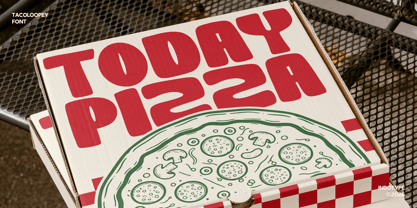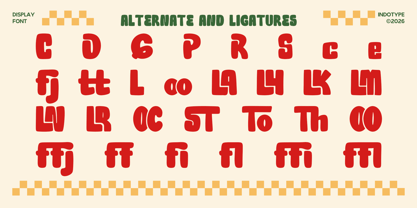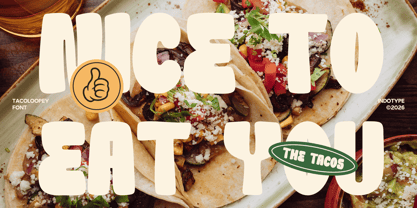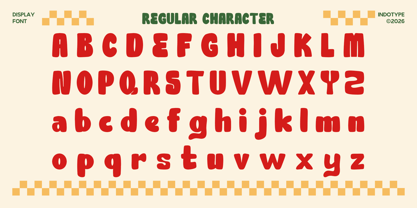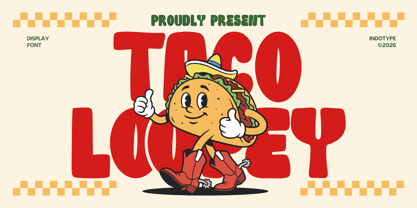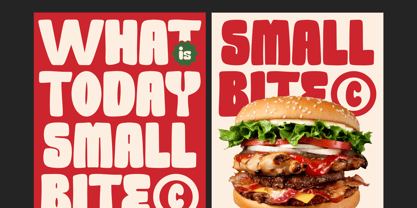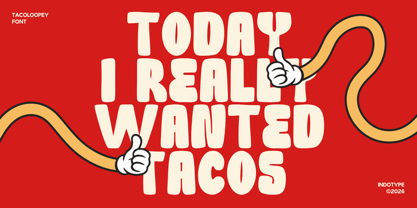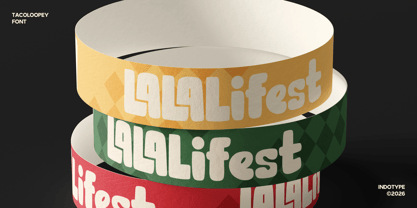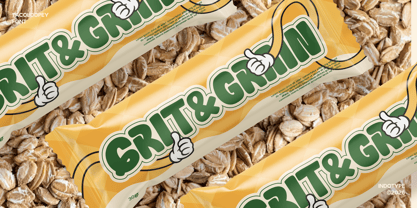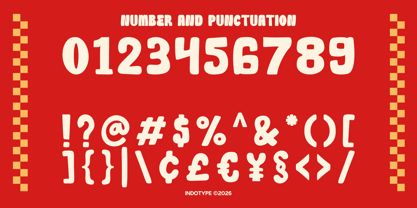
IT Tacoloopey
by Indotype
The IT Tacoloopey Font Family was designed by Frederik Aristaputra and published by Indotype. IT Tacoloopey contains 2 styles and family package options. More about this family
Tacoloopey is a joyfully eccentric display font that blends childlike whimsy with good fortune. Characterized by its bouncy baseline, irregular letter proportions, and charmingly imperfect shapes, this font feels like it was drawn with a smile. Its playful energy is infused with a subtle "lucky" charm—think four-leaf clovers and cheerful serendipity—making it perfect for projects that are fun, optimistic, and a little bit magical. This font is designed to spark happiness and creativity. Tacoloopey is ideal for children's brands, playful product packaging, event announcements for parties and festivals, social media graphics that stand out, and any design project that isn't afraid to be boldly cheerful and approachably quirky. It’s more than a font; it’s a dose of happy typography. • Ideal for: Children's Books & Brands, Party & Festival Graphics, Playful Product Packaging, Social Media & Blog Headers, Lucky-Themed Projects, Quirky Logotypes. • Classification: Display, Handwritten, Playful, Decorative. • Attributes: Whimsical, Cheerful, Lucky, Quirky, Bouncy, Friendly, Energetic.
Designers: Frederik Aristaputra
Foundry: Indotype